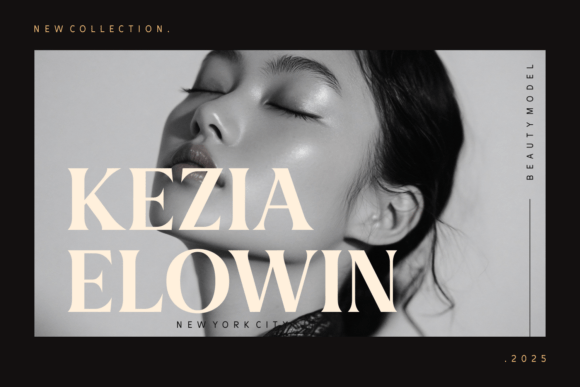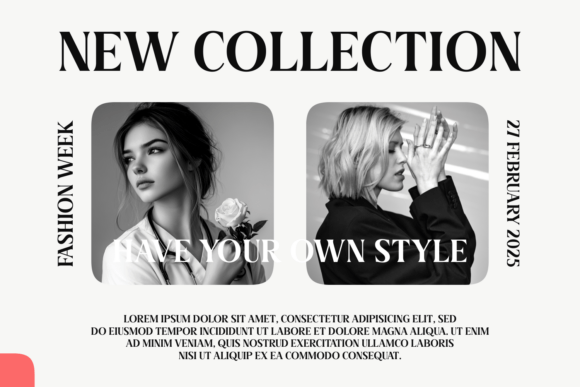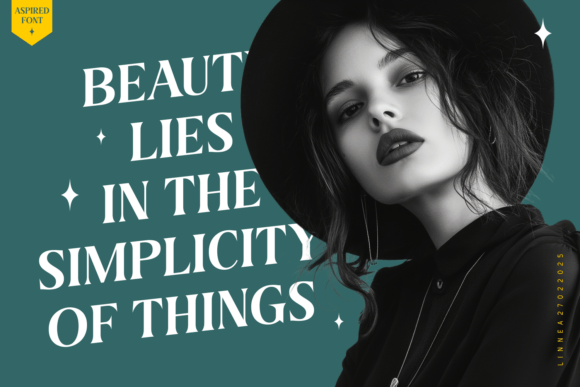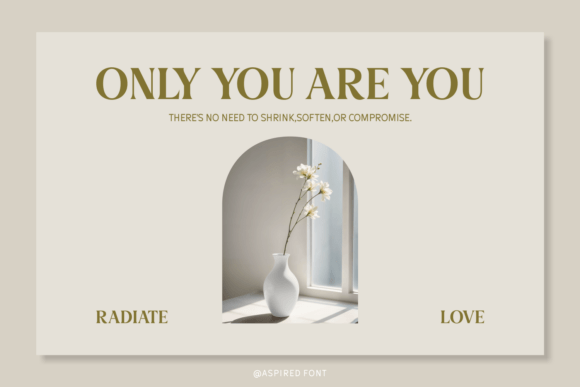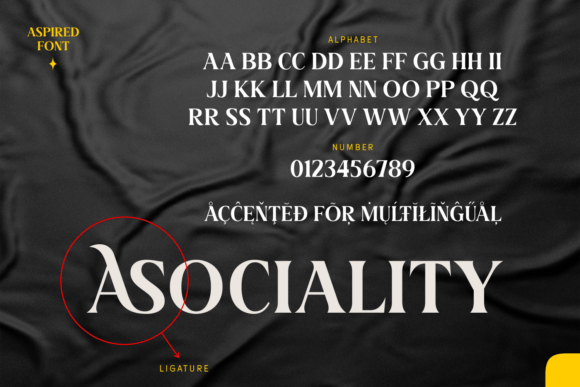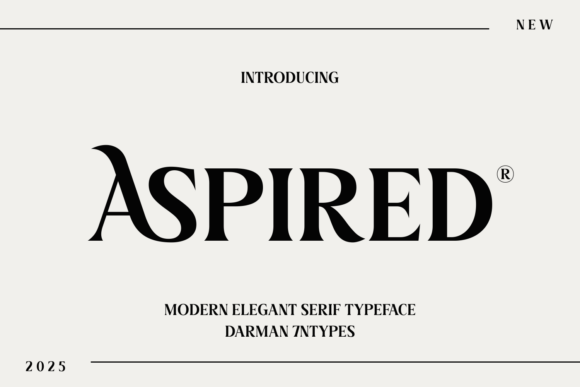
The Birth of a Timeless Classic: Introducing the Aspired Font
As a designer, there’s no greater thrill than witnessing a creative vision come to life. For me, it was the moment I stumbled upon the Aspired Font – a luxurious and stylish calligraphy inspired masterpiece that effortlessly combines vintage elegance with a modern twist. I knew in that instant that I had discovered something truly special, something that would elevate my designs to new heights.
The Aspired Font is more than just a font – it’s a versatile tool that can be used to create a wide range of stunning designs, from delicate wedding invitations to vintage-inspired apparel. Its smooth, clean strokes and classic appeal make it a popular choice among designers, photographers, and font aficionados alike. Whether you’re looking to add a touch of sophistication to your fashion spreads or create a retro vibe that’s undeniably captivating, the Aspired Font is the perfect choice.
Aspired Font Key Features
- Unique Characteristics: Aspired Font features a unique blend of modern and classic design elements, with intricate details and subtle texture, making it a standout choice for designers and typographers.
Aspired Font Review
Overall, I think Aspired Font is a solid choice for a clean and modern design. ✨ It’s got a lot of potential, and the designers have done a great job of creating a consistent look and feel across the different weights and styles.
The font’s versatility is one of its strongest points. ✨ It can be used for a wide range of applications, from headlines and titles to body text and even decorative elements. The font’s clean lines and minimalist aesthetic make it a great choice for digital products, branding, and marketing materials.
- ⚠️ The font’s readability can be a bit of an issue in smaller sizes, especially in text-heavy content. It’s not a major problem, but it’s something to keep in mind when using the font in body text.
- ⚠️ The font’s uniqueness can also be a double-edged sword. While it’s definitely distinctive, it may not be the best choice for projects where you want to blend in or avoid drawing attention away from the content.
Overall, I’d say Aspired Font is a great choice for designers who are looking for a clean, modern font with a lot of potential. Just be aware of its limitations, and use it in a way that plays to its strengths.
Tips for Getting the Most Out of Aspired Font
To get the most out of Aspired Font, use it in conjunction with bold and italic text to create visual hierarchy and emphasis. You can also use it in combination with other fonts to create a unique and modern design aesthetic.
Aspired Font is commonly used in modern design projects such as logos, business cards, and brochures. It is also used in digital design projects such as websites and social media graphics.